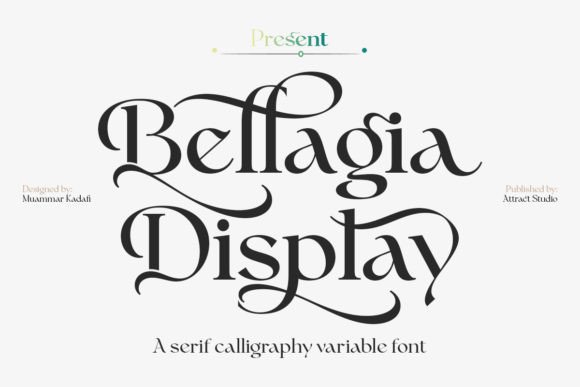
Prepare to be captivated by Bellagia Display Font, a serif font family that exudes elegance and sophistication. Attract Studio, the creative force behind this masterpiece, has harmoniously blended two calligraphy typefaces with vintage serifs, resulting in a natural bond that will elevate your projects to new heights.
Immerse yourself in the world of Bellagia Display, where classic meets contemporary, and timeless meets trendy. Its meticulously crafted characters, adorned with intricate details and flowing strokes, will add a touch of allure to your designs. Each letterform is a work of art, designed to evoke emotions and leave a lasting impression on your audience.
Bellagia Display's versatility knows no bounds. Whether you're crafting logos, branding materials, wedding invitations, or social media posts, this font will effortlessly elevate your creations. Its timeless aesthetic seamlessly adapts to any design style, ensuring that your projects stand out from the crowd.
Unleash your creativity and let Bellagia Display take your designs to the next level. Its PUA encoding makes accessing the font's full potential a breeze, allowing you to effortlessly incorporate stunning glyphs and ligatures into your work. Experience the joy of creating designs that captivate hearts and leave an unforgettable impact.